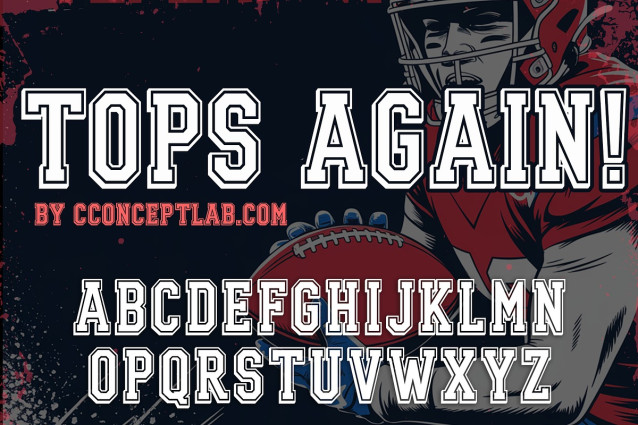
Tops Again Font
Tops Again Font – Bold college inspired font perfect on your school projects, covers, etc.
A clean theme font for sports, university events and varsity use.
Available in Uppercase, Numbers, Punctuations and Symbols.